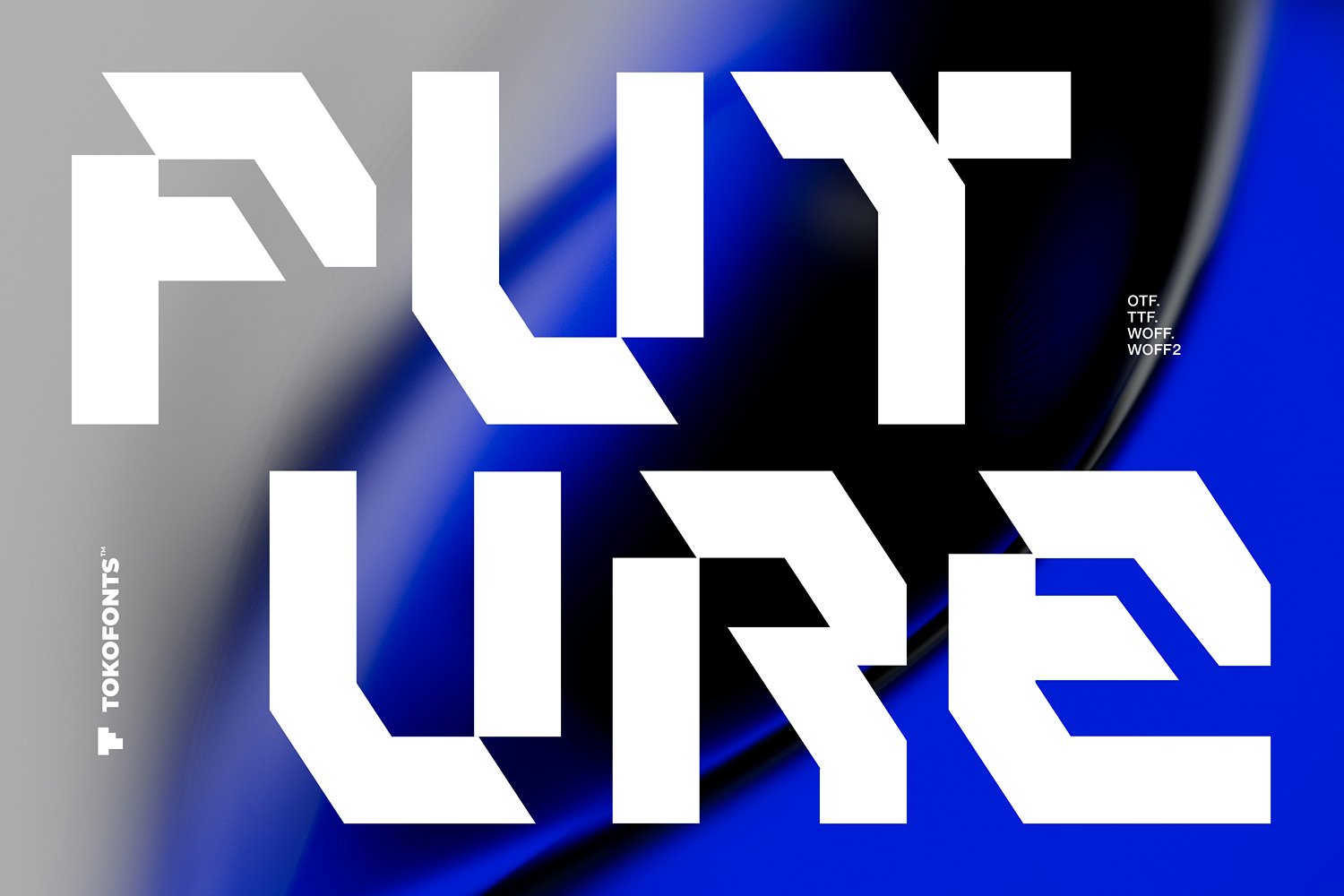
Future – Modern Techno Font
Future – Modern Techno Font is a professionally designed typeface that delivers clarity, structure, and consistent performance across various design applications. Future is a modern futuristic display font designed with clean lines and bold geometric forms. Its sleek structure reflects the spirit of technology, innovation, and digital progress. The letterforms are crafted to create a strong contemporary appearance, making Future a perfect choice for modern logos, branding, and visual designs that require a sharp and forward-thinking typographic style.
With its futuristic and technological character, Future works beautifully for gaming visuals, movie titles, posters, animation projects, and digital design concepts. The bold and clean construction ensures strong readability while maintaining a modern and high-tech personality, making it ideal for creative projects that aim to present a powerful and innovative visual identity.